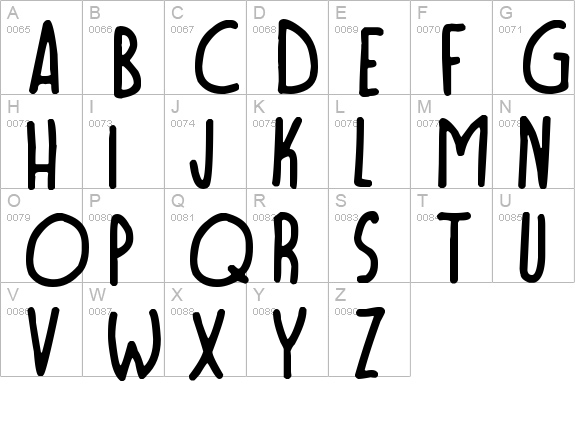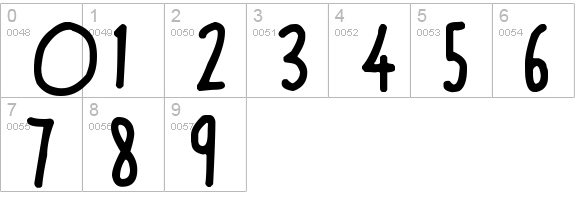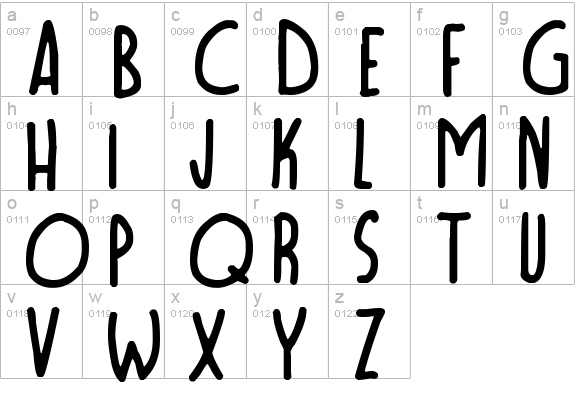
Moonlight New Font Details
Moonlight New is a donationware font in the Script > Handwritten category, designed by Darrell Flood. It has been downloaded 30 times and is available for Windows, Mac and Linux.
Moonlight New is a captivating and versatile font that exudes elegance and sophistication. With its modern and stylish design, this typeface is perfect for a wide range of design projects, from branding to editorial layouts. The sleek and smooth lines of Moonlight New give it a contemporary feel, making it the ideal choice for adding a touch of class to any project.